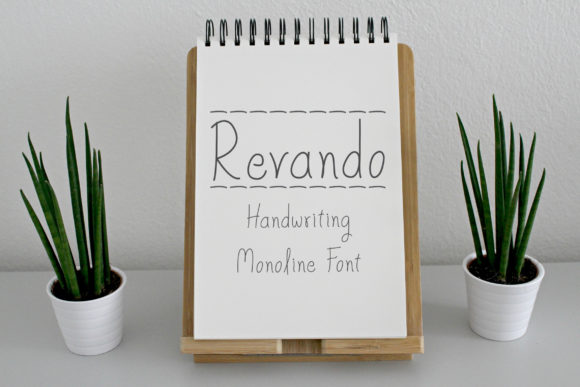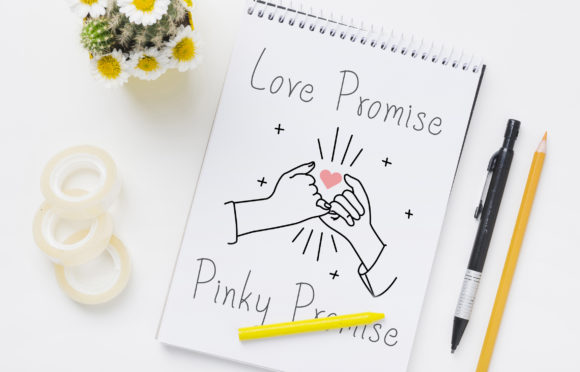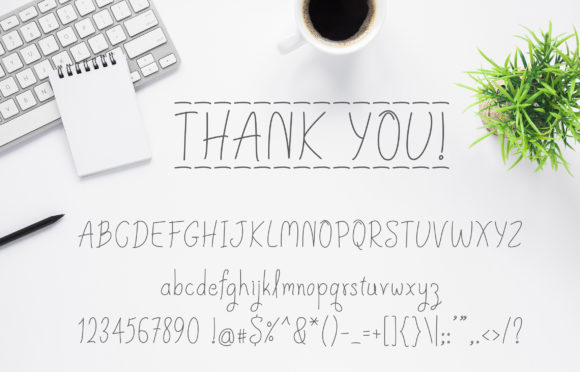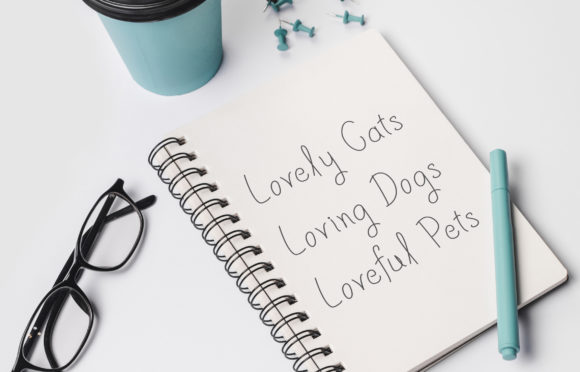
Revando Font
About Revando Font
The Revando is a handwritten monoline font with a clean handwriting style. It’s easy to use and has a great readability.